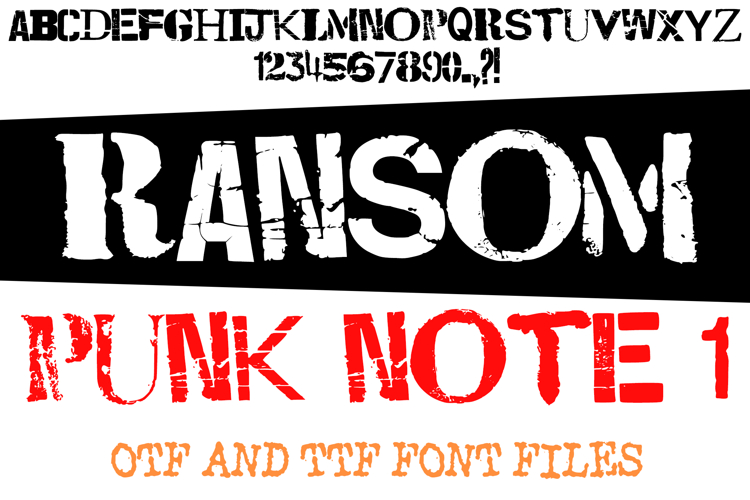
Ransom Punk Note 1 Distressed Lettering ABC Font Typography
Ransom Punk Note 1 is a bold and distressed ransom-note style font inspired by punk culture, DIY zines, and underground flyers. With its rough edges, grunge texture, and rebellious attitude, this font is perfect for designs that demand raw energy and street-style impact.
Use Ransom Punk Note 1 for posters, album covers, punk and metal band merch, tattoo designs, stickers, flyers, apparel, or any project that needs a bold and edgy statement. Its handmade, cut-and-paste style makes it an excellent choice for rebellious branding, alternative fashion, and creative projects with attitude.